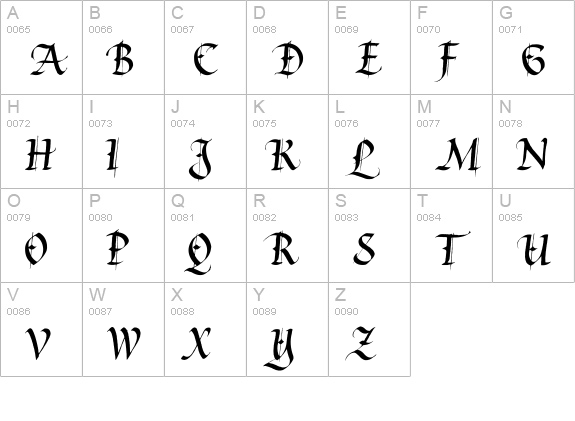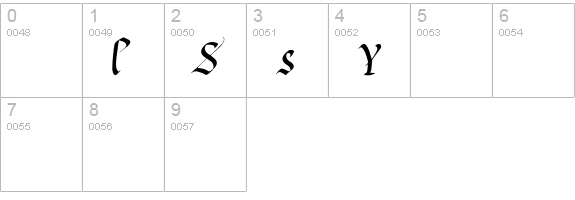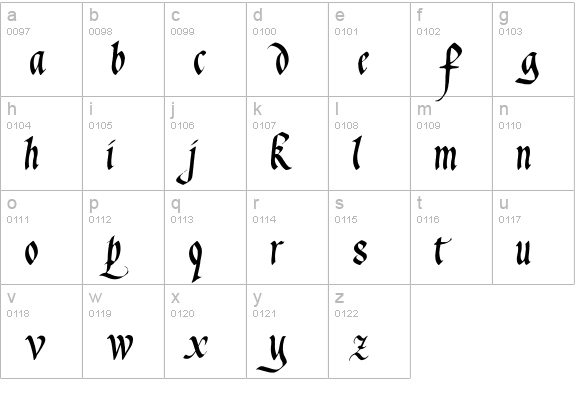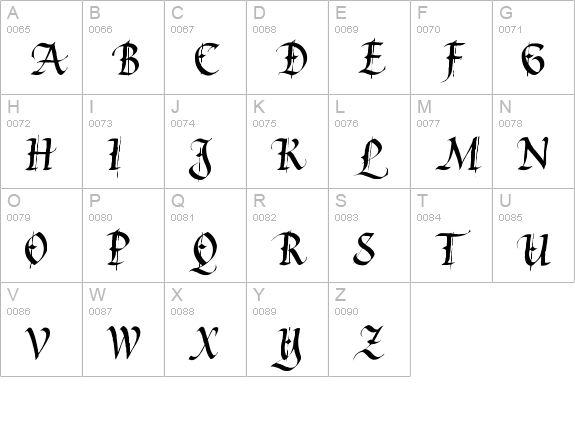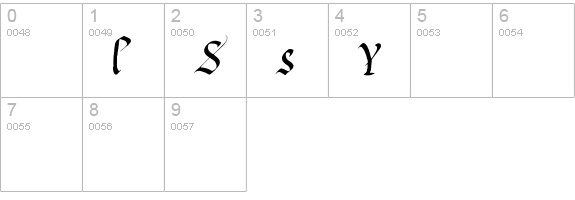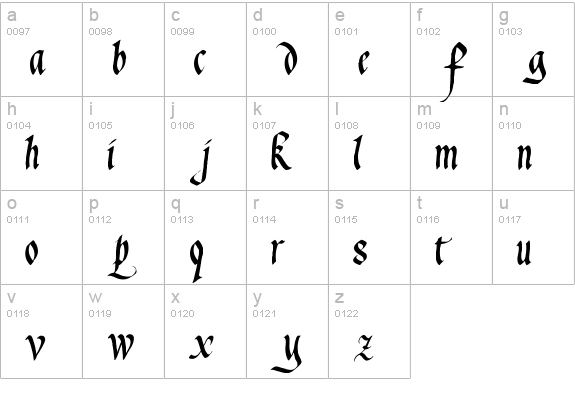
Waters Gothic Font Details
Introducing Waters Gothic Font - a captivating and intricate typeface that will add a touch of elegance and mystery to your designs. With its bold and stylish letterforms, Waters Gothic Font is perfect for projects that require a Gothic-inspired aesthetic. Designed with meticulous attention to detail, this font embodies the essence of Gothic art, evoking a sense of history and tradition. Each letter exudes a sense of strength and power, while maintaining a delicate balance between sharp edges and fluid curves. One of the most remarkable aspects of Waters Gothic Font is that it is freely available to download at FontsMarket.com. This means that you can effortlessly bring this stunning typeface into your creative endeavors without any cost. Whether you are designing a logo, creating a poster, or crafting a wedding invitation, Waters Gothic Font is an invaluable asset that will elevate your work to new heights. With its extensive character set, Waters Gothic Font offers versatility and flexibility, allowing you to explore various design possibilities. From vintage-inspired projects to modern and edgy designs, this font adapts effortlessly to any creative vision. The unique and captivating charm of Waters Gothic Font lies not only in its design but also in its ability to convey a powerful message. It speaks volumes, capturing attention and leaving a lasting impression on viewers. Embrace the allure of the Gothic aesthetic and download Waters Gothic Font today from FontsMarket.com. Unleash your creativity and let this font guide you on a thrilling journey through the realms of design. With Waters Gothic Font, your projects will captivate and mesmerize, leaving a lasting impact on your audience.